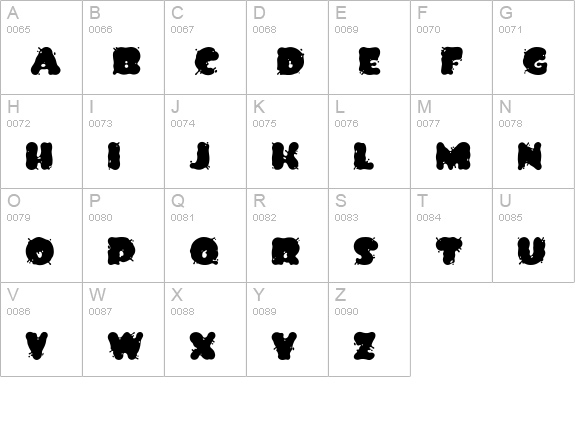
Spilt Ink Font Details
Introducing Spilt Ink font, a captivating typeface that seamlessly blends elegance and edginess. This font is a true work of art, designed to leave a lasting impression with its unique and striking appearance. With its carefully crafted letterforms and intricate details, Spilt Ink font captures the essence of creativity and individuality. Inspired by the mesmerizing patterns created by ink spills, this font exudes a sense of fluidity and movement. Each character seems to dance on the page, creating a visual symphony that is both captivating and expressive. Whether used for headlines, logos, or body text, Spilt Ink font adds a touch of sophistication and intrigue to any design project. One of the most remarkable features of Spilt Ink font is its versatility. It effortlessly transitions between bold and delicate, making it suitable for a wide range of applications. From fashion and beauty to art and photography, this font effortlessly elevates any visual composition. What makes Spilt Ink font even more appealing is that it is available for free download at FontsMarket.com. This means that designers, artists, and enthusiasts alike can easily access this remarkable typeface to enhance their creative endeavors. The freedom to explore and experiment with this font opens up a world of possibilities, allowing individuals to unleash their imagination and bring their visions to life. In summary, Spilt Ink font is an extraordinary typeface that combines elegance and edginess in a captivating manner. Its fluid design and versatility make it a valuable asset for any design project. And the fact that it is freely available to download at FontsMarket.com ensures that everyone can enjoy its beauty and unleash their creativity without any constraints. So why wait? Embrace the artistic allure of Spilt Ink font and let your designs make a bold statement.